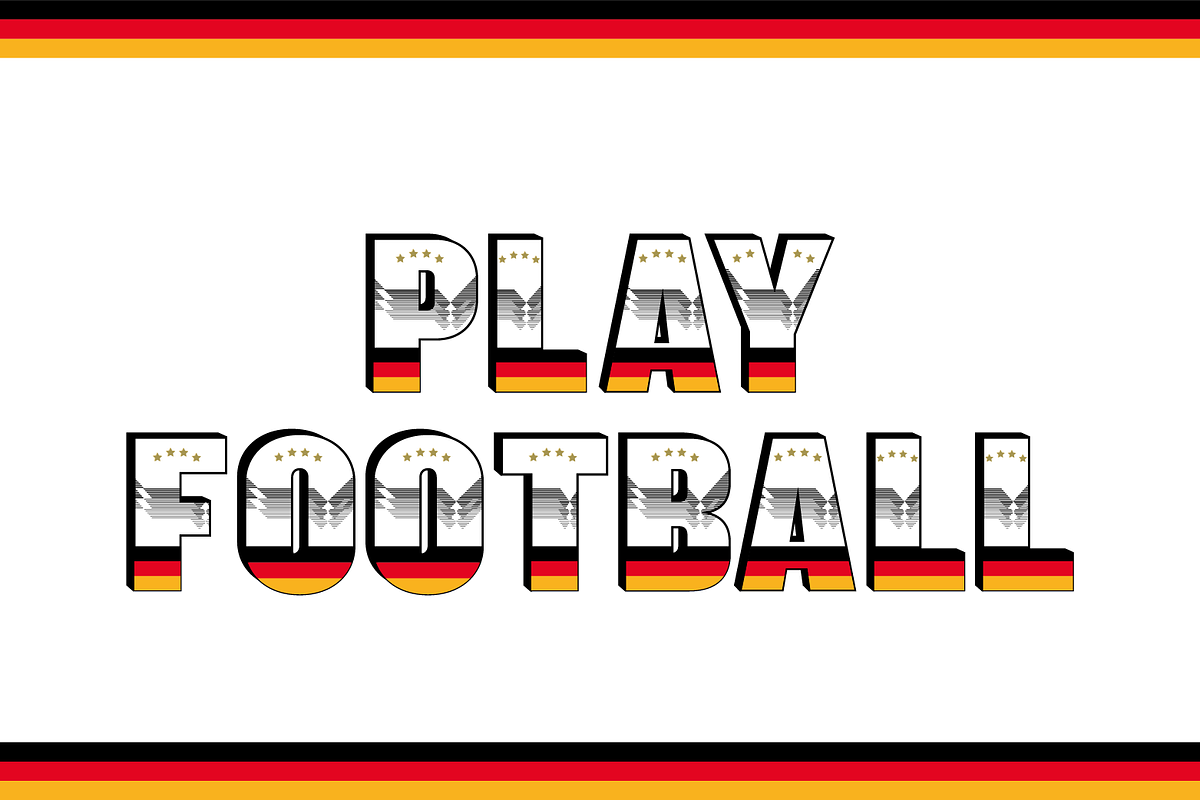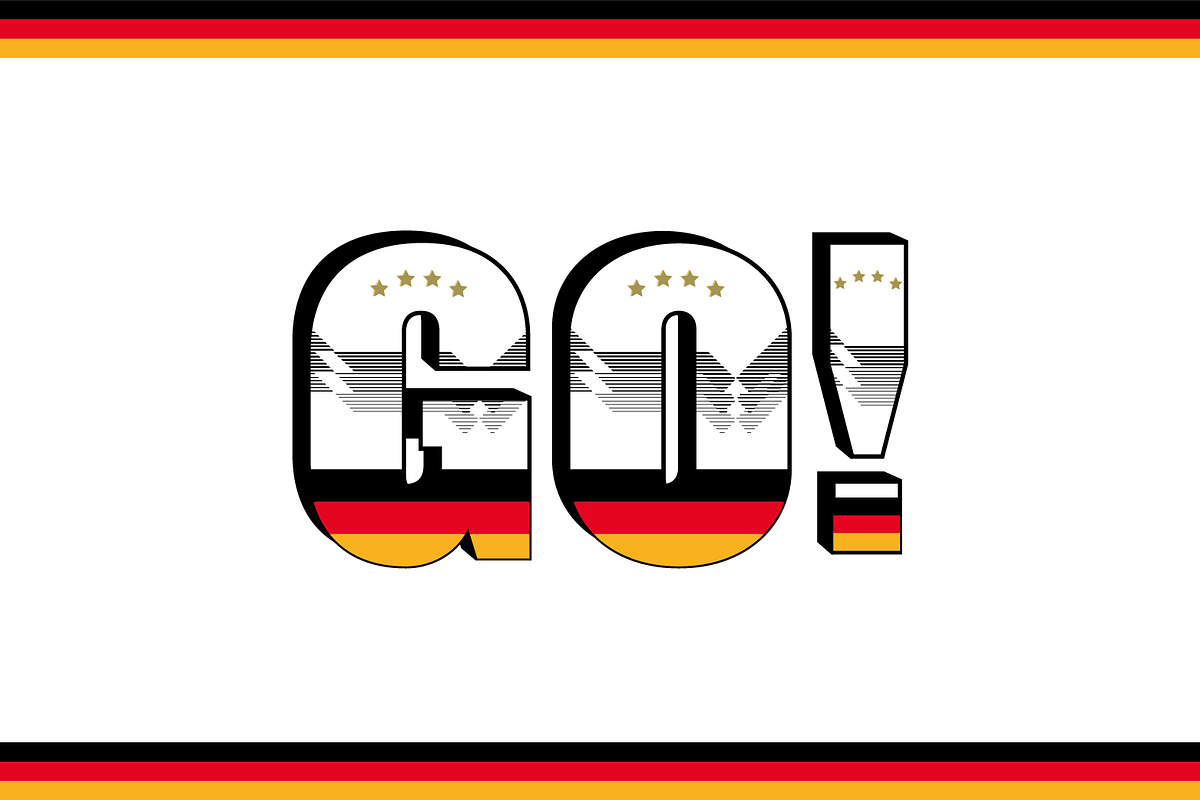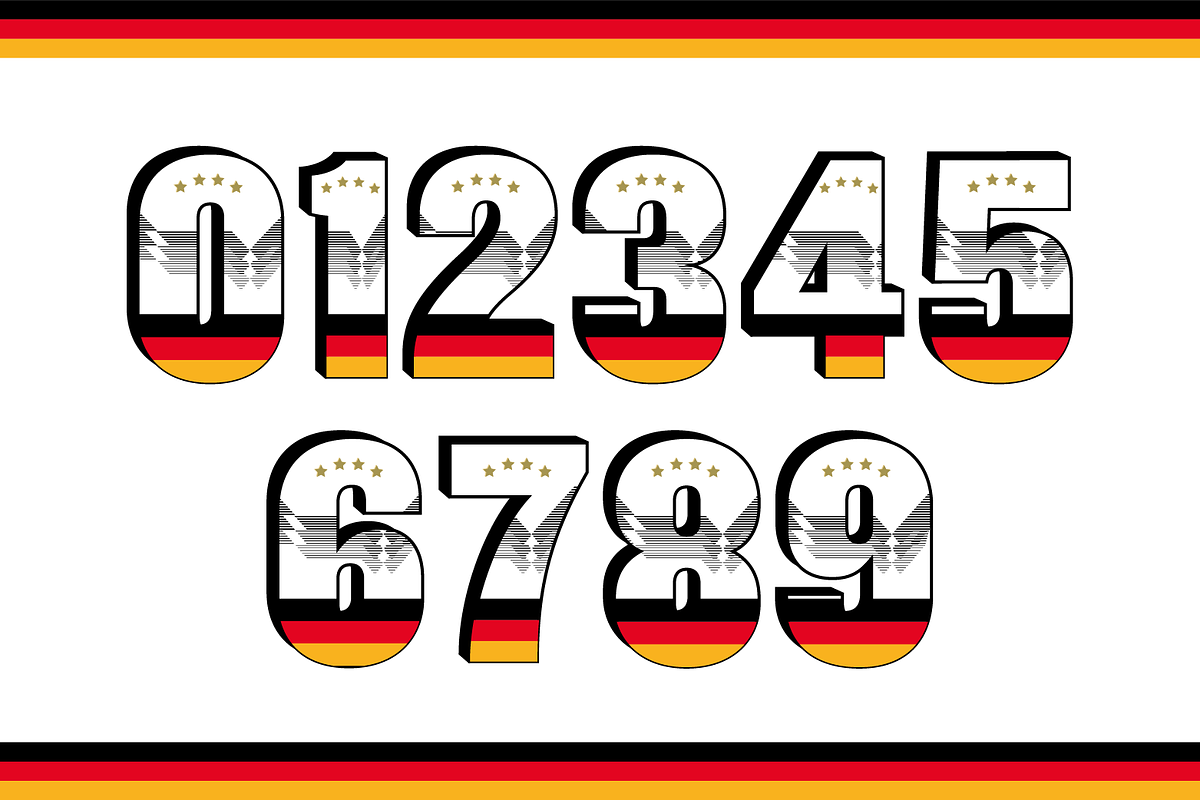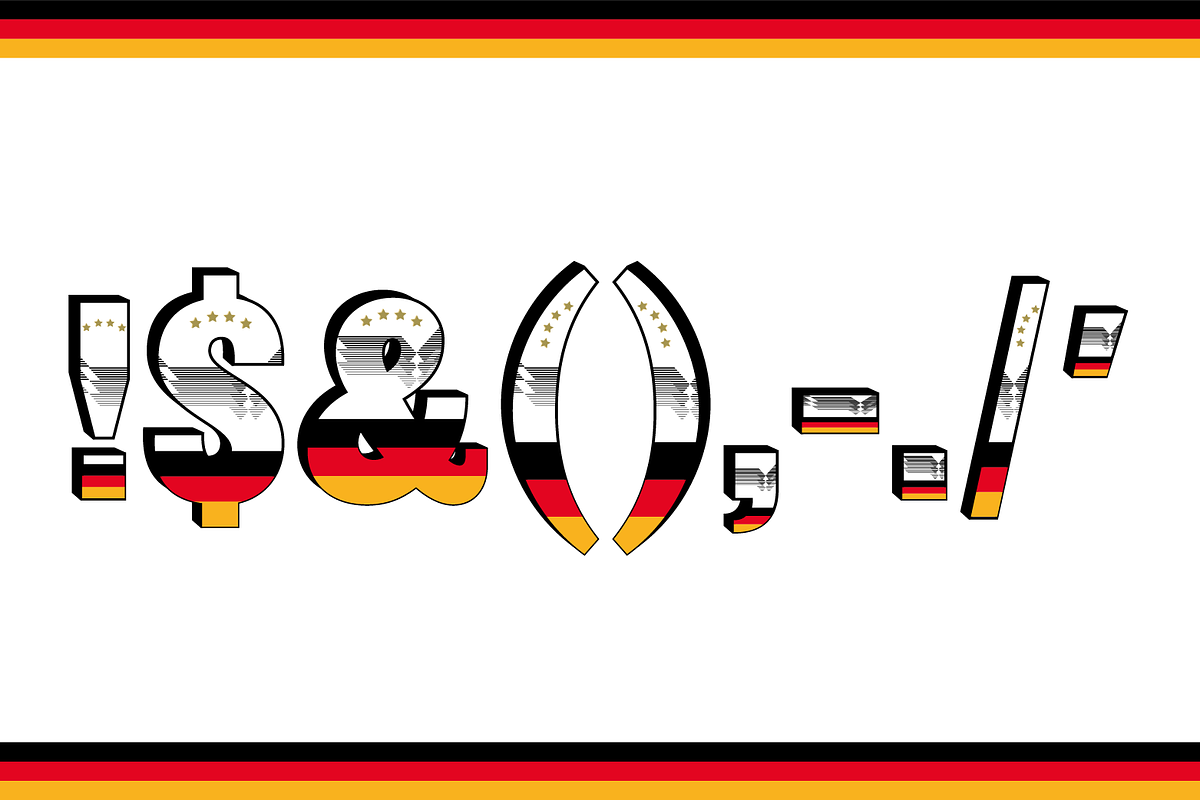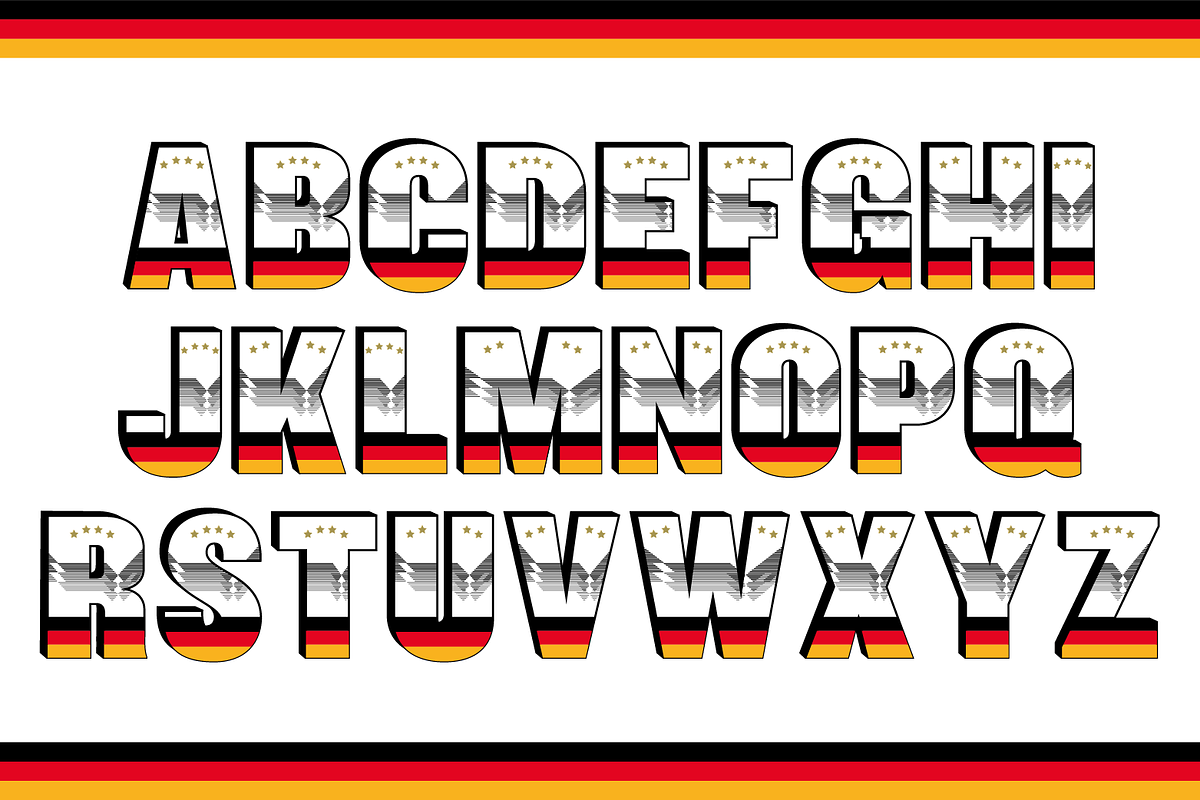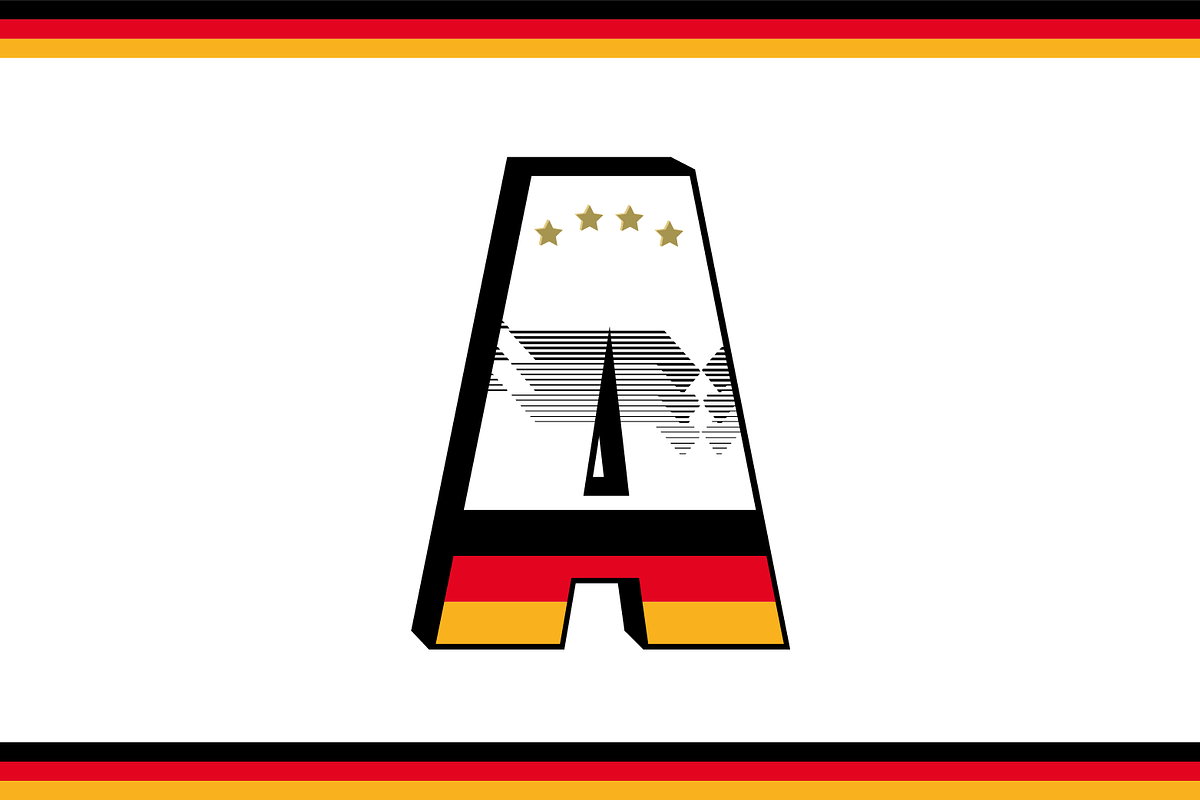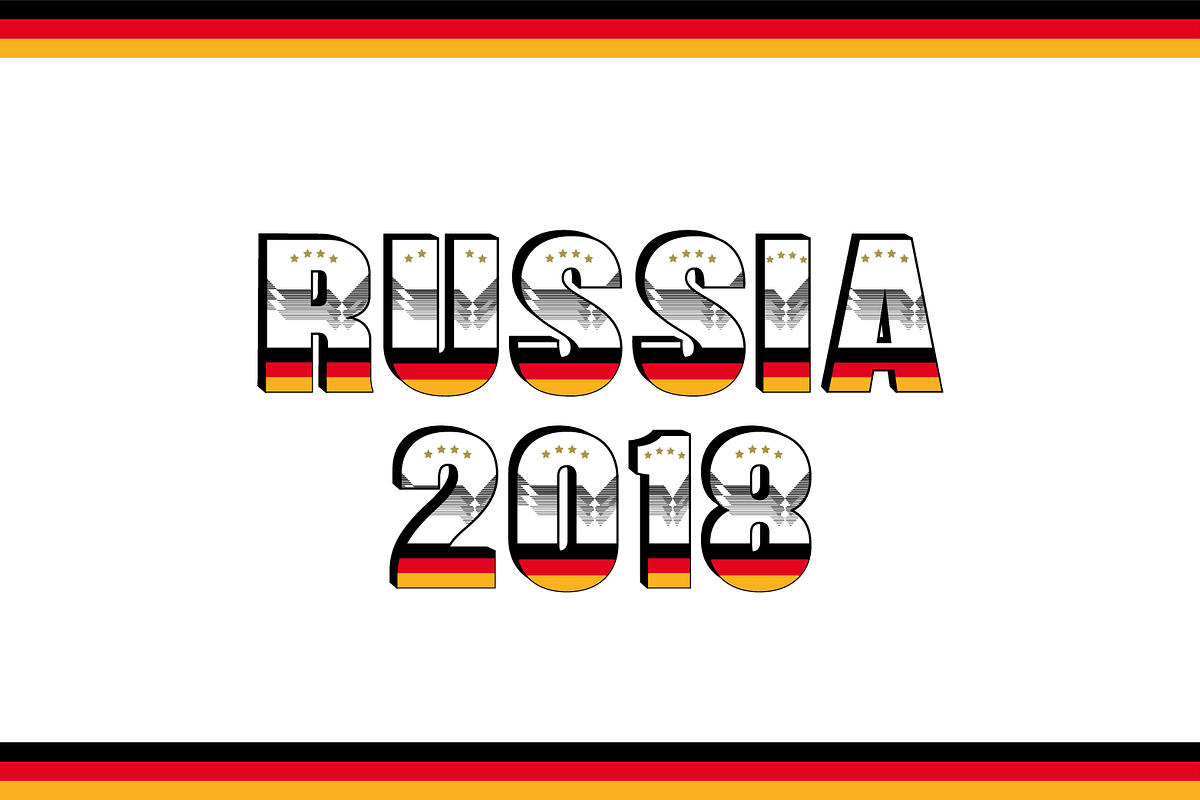
Germany Font
Typography designed for and now you can have it too!
Why Germany Font is worth a look
Germany Font by yaisalinas fits naturally into Branding, posters, packaging, typography.